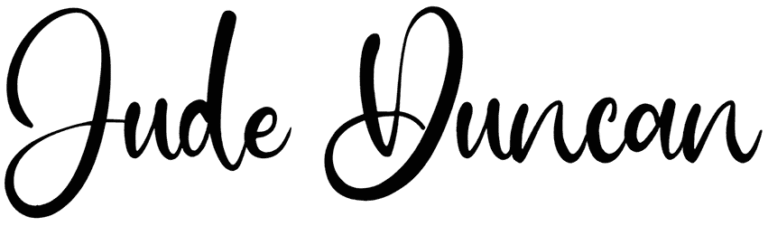
Aniba Font
Here, we come up with a dazzling artistic handwritten font to crack, giving it a chance to evoke any confidential vibe, straight from the RB budget, while including the excellent pure feminine touch.